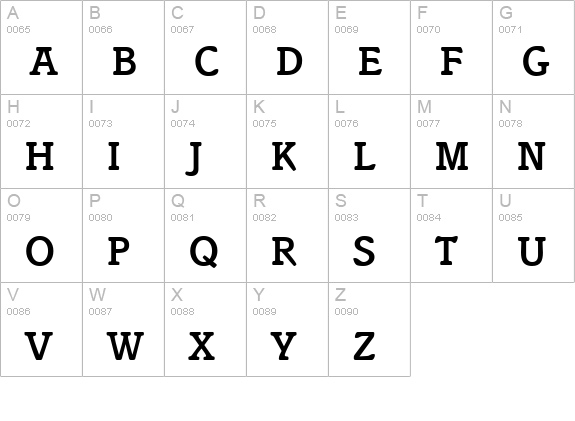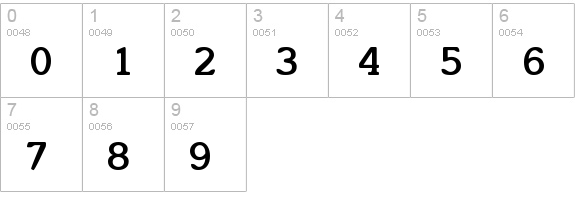
I831-Slab-Bold Font Details
I831-Slab-Bold is a strong, high-contrast variant in the I831 typeface family \xE2\x80\x94 well suited to headlines, attention-grabbing titles, and strong calls-to-action.
I831-Slab-Bold is a modern and bold typeface that exudes strength and professionalism. With its sturdy and solid design, this font is perfect for making a statement in headlines, logos, posters, and branding materials. The bold weight ensures maximum impact and readability, making it a versatile choice for a wide range of design projects. What makes I831-Slab-Bold even better is that it is available for free download at FontsMarket.com. This means you can easily access this high-quality font without any cost, making it a valuable addition to your font collection. Don't miss out on the opportunity to enhance your designs with the bold and impactful style of I831-Slab-Bold – download it for free today!